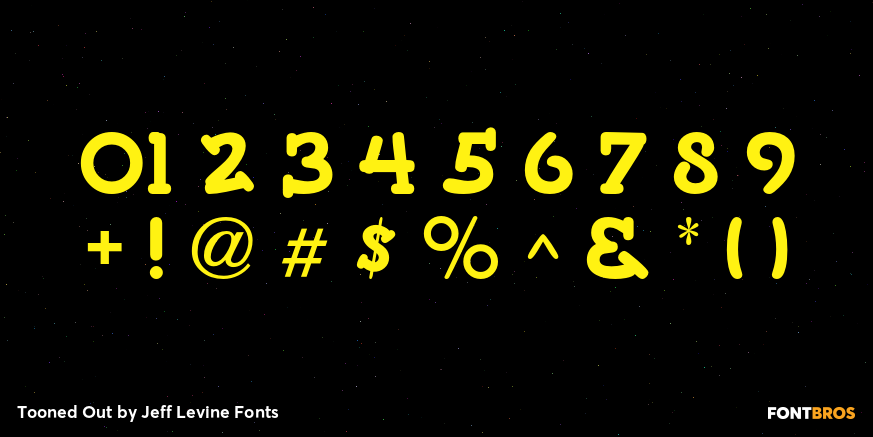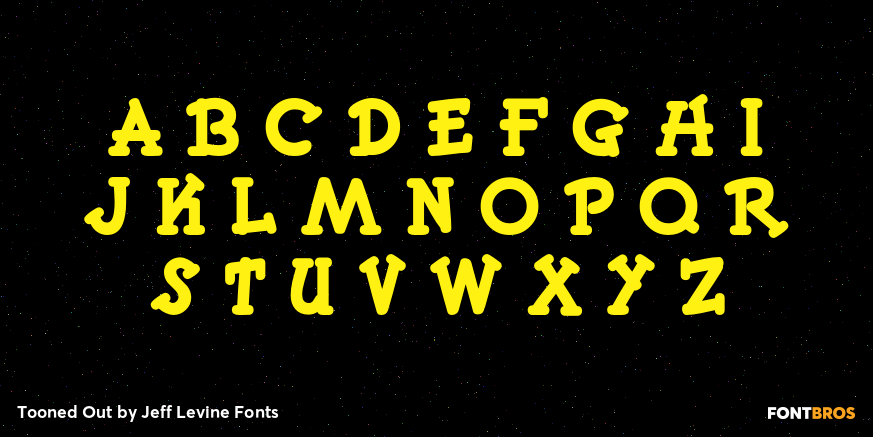
Tooned Out JNL gives a serif treatment to the cartoon-inspired lettering of Toon-In JNL. Both fonts are great for any casual or fun messages or themes.